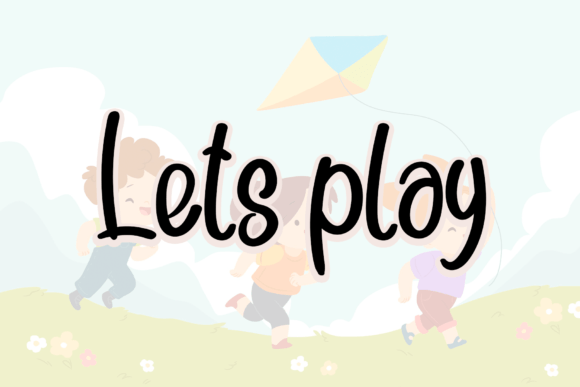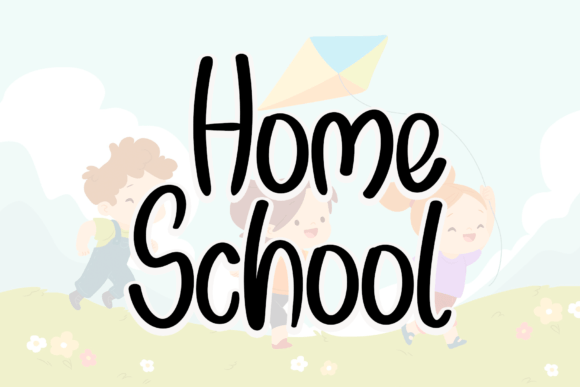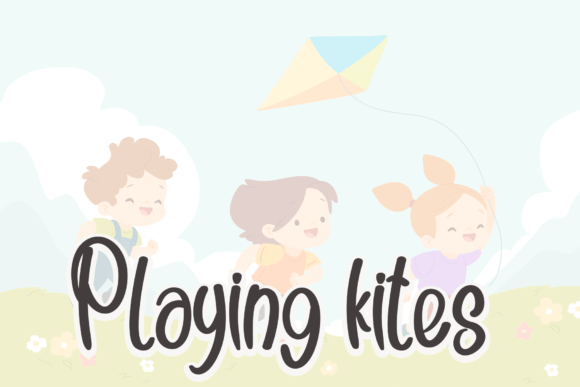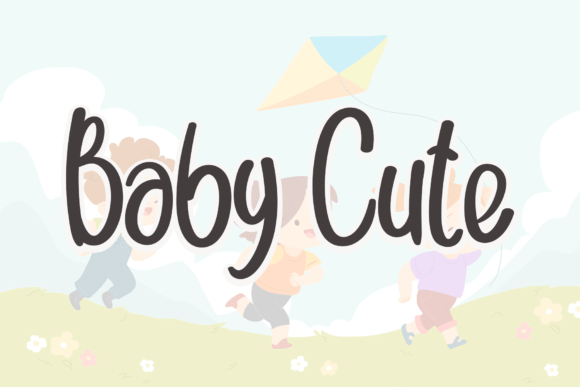
About Child Font
“Child” emerges as a neat and beautiful handwritten font, adorned with an elegant touch that adds sophistication to your favorite projects. This font, with its distinct and timeless style, serves as the perfect choice to infuse grace into your creative endeavors. Discover the enchanting charm of Child and let it be the catalyst for the creation of truly spectacular designs!
Child’s neat and beautiful features make it a versatile font suitable for a myriad of design applications. Whether you’re crafting invitations, greeting cards, branding materials, or engaging in any other creative project, this font introduces a refined and elegant aesthetic. Its handwritten essence imparts a personal and human quality, making it especially well-suited for projects that seek to convey warmth and authenticity.
The inherent elegance of Child contributes to its timeless appeal. This font transcends passing trends, offering a classic and enduring style that withstands the test of time. Its adaptability allows it to seamlessly integrate into different design themes and contexts, ensuring it remains a reliable choice for a diverse array of creative expressions.
By selecting Child, you’re embracing a distinct and sophisticated aura for your designs. The font’s refined strokes and subtle details make it resonate with individuals who appreciate simplicity and craftsmanship. Whether employed for headlines, quotes, or as a central element in your designs, Child possesses an innate ability to elevate the visual impact of your projects.
In summary, Child is not merely a font—it’s a design asset that infuses an elegant touch into your creative arsenal. Its neat and beautiful handwritten style, coupled with a timeless charm, positions it as the ideal choice for crafting spectacular designs that leave a lasting impression. Embrace the unique qualities of Child and let it be the elegant muse that transforms your favorite projects into visually exquisite works of art.